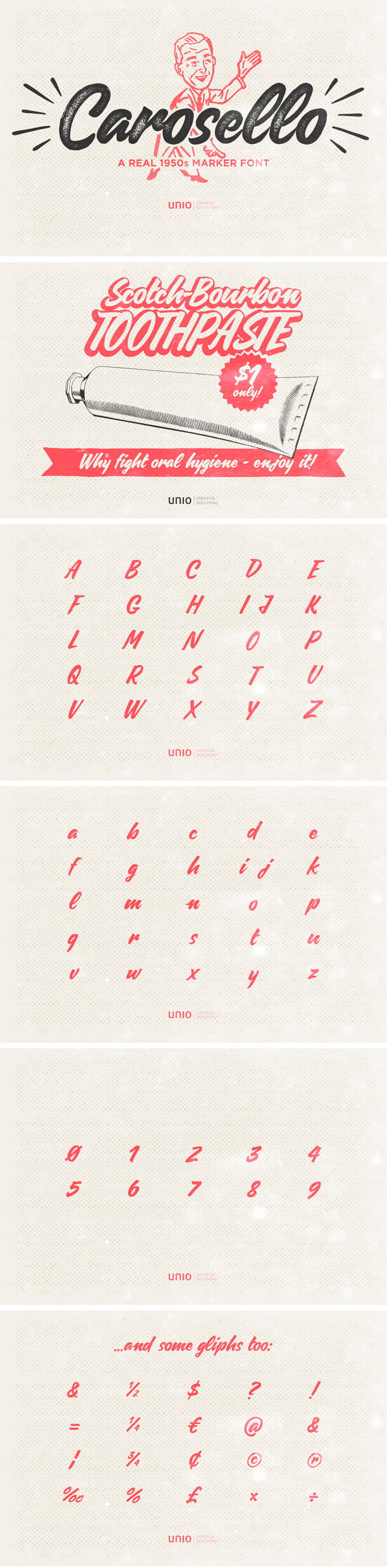
Carosello Font
Our biggest holiday wish is to make our freebies as big and useful as possible. We’re happy to give you the Carosello, a beautiful font inspired by vintage ads, and created to give a genuine hand-written impression to your work. It will be a huge helper to anyone who’s into vintage style. We thank guys from Unio | Creative Solutions for providing us with this wonderful freebie!